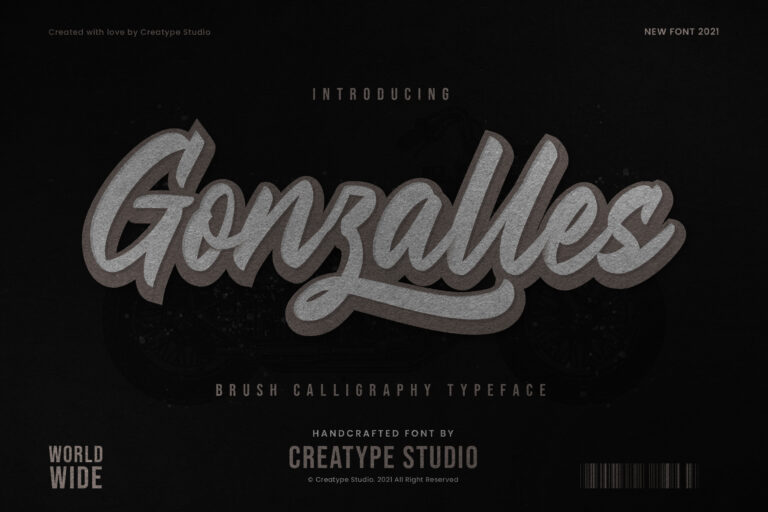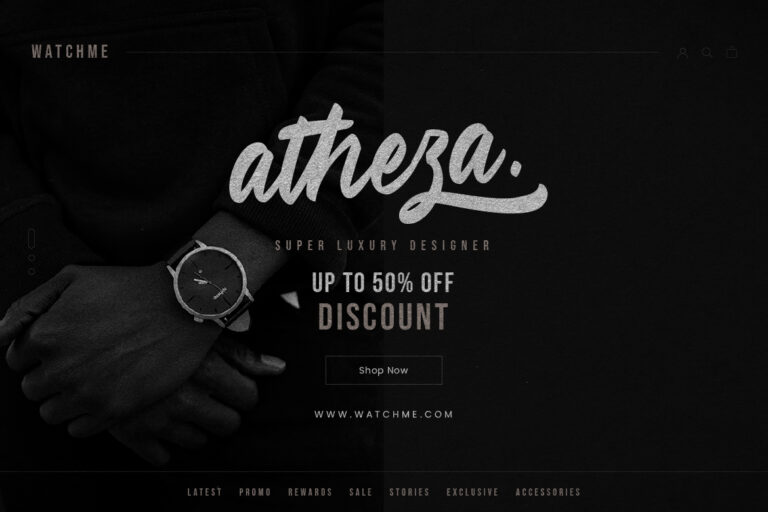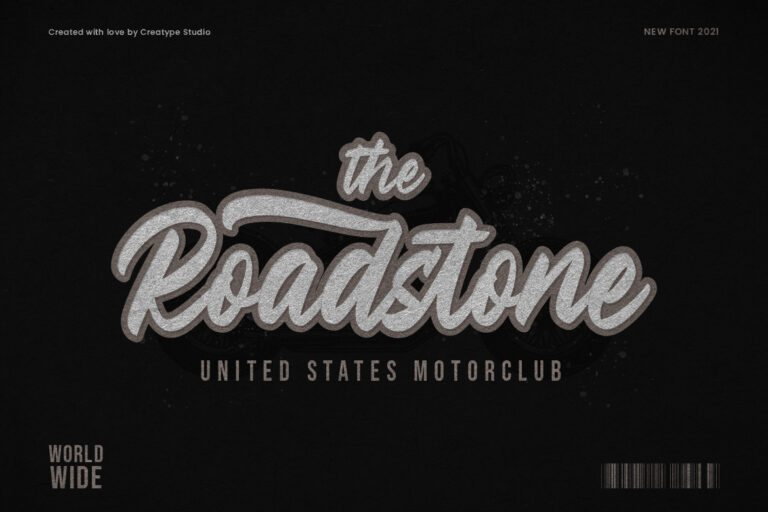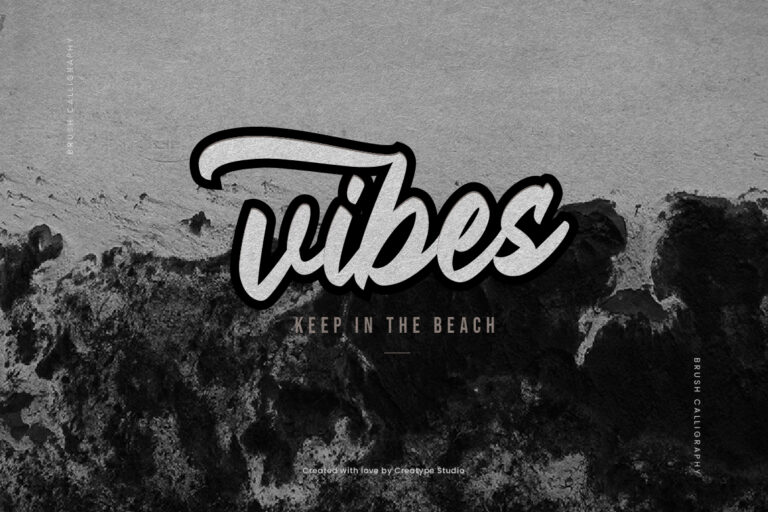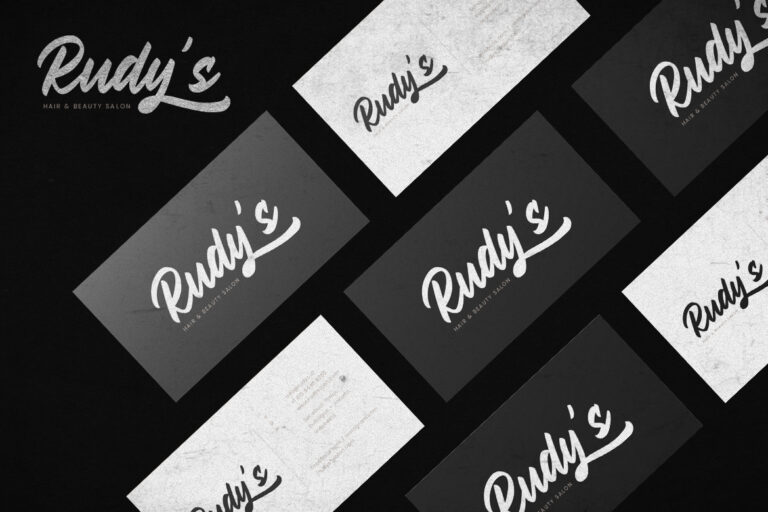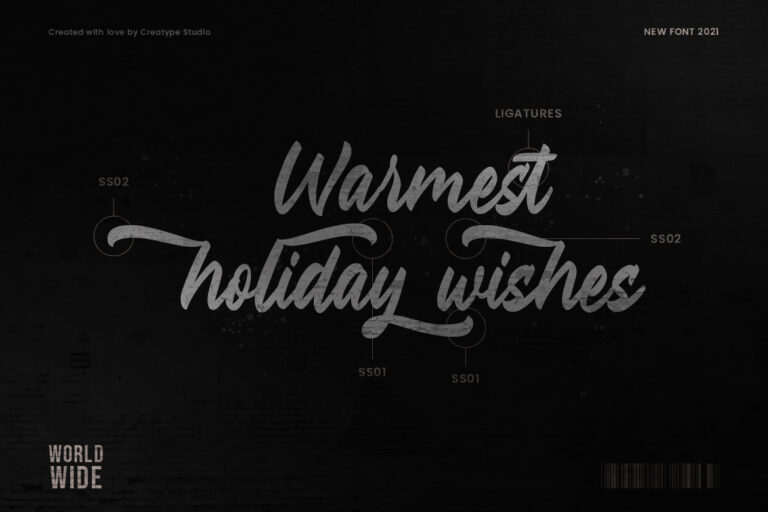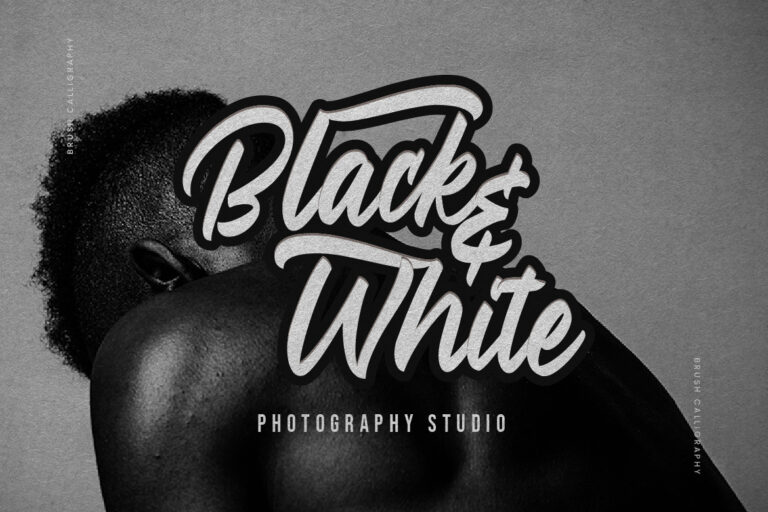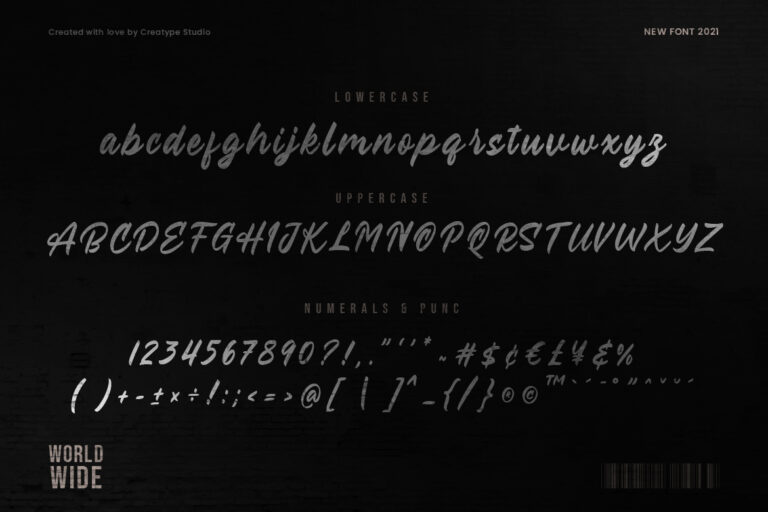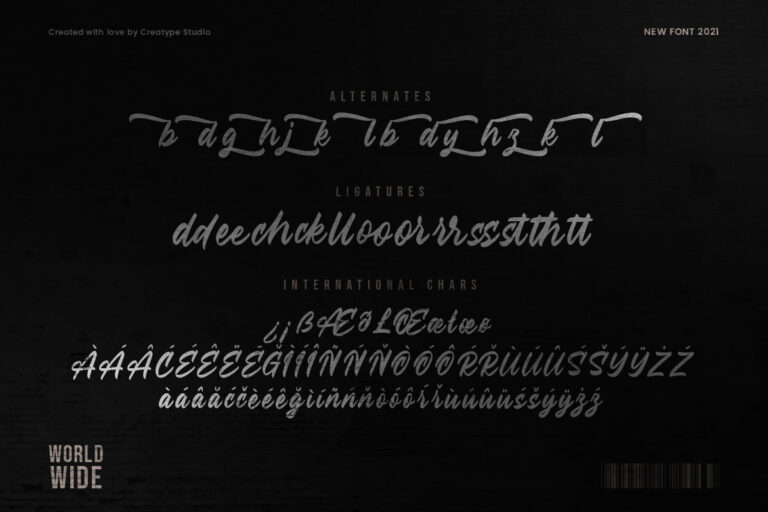
Gonzalles Brush Calligraphy
Gonzalles is a brush calligraphy typeface that is made by the hands of the experts with great love so that it produces works that are so natural. The strokes in the fonts make your project look extraordinary.
Gonzalles is perfect for branding projects, logo, wedding designs, social media posts, advertisements, product packaging, product designs, label, photography, watermark, invitation, stationery and any projects that need handwriting taste.